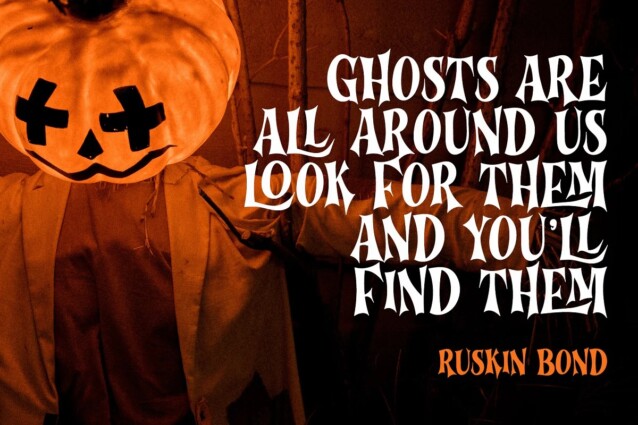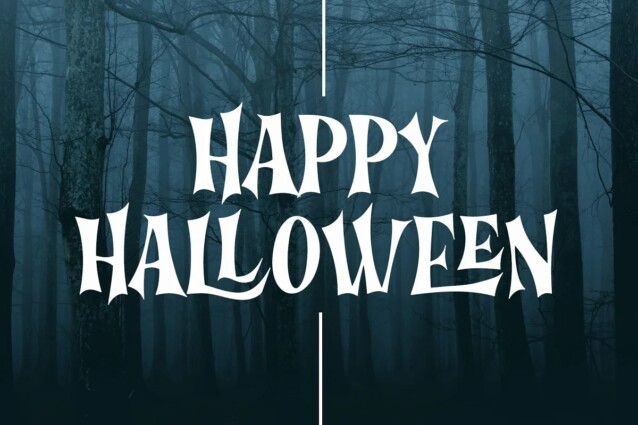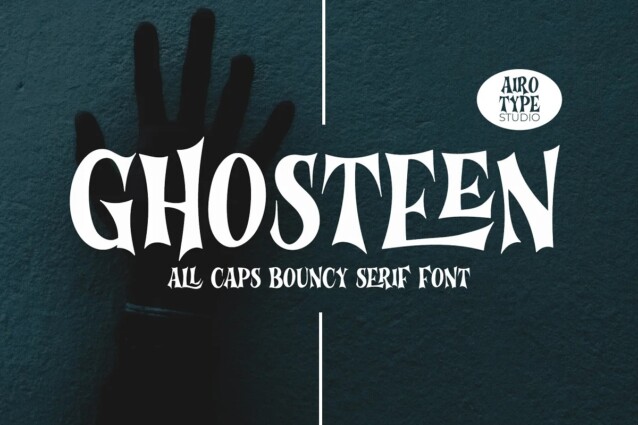
Ghosteen Font
Ghosteen Font is a classic horror and magic all-caps serif typeface. It also has some ligatures. Ghosteen is catchy and fun to be used in playful and spooky design, such as halloween, crafting, t-shirt design, stickers, sublimation, and others.